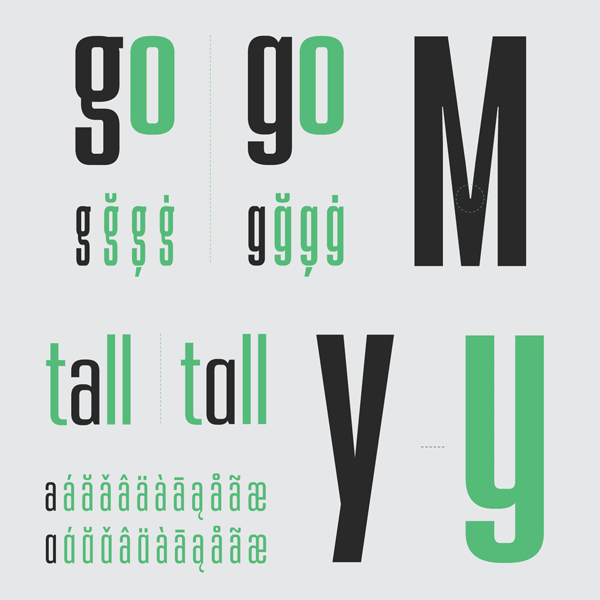
The Kizo Typeface.
Font designer Mariya V. Pigoulevskaya of The Northern Block Type Foundry has created the Kizo font family in 2013. This geometric condensed sans serif typeface is inspired by modern architecture and clear structures. Kizo offers a functional, rational, and subtle look. You can use it as text font and display typeface. The Kizo font family consists of 4 weights and 434 characters in total. This beautiful condensed sans serif family is packed with different OpenType features and alternates for professional typography. You can get this type family as both modern webfont as well as conventional desktop font. You can get further information on MyFonts.